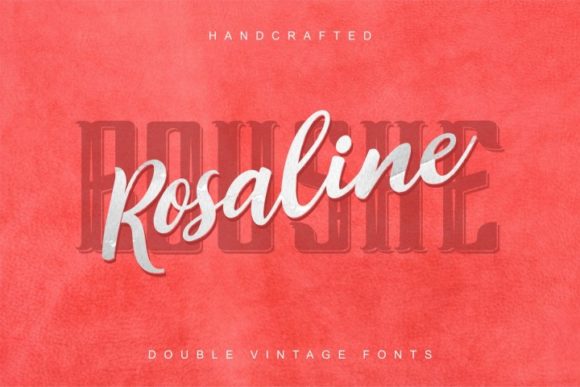
Rosalina Boushe Duo Font
About Rosalina Boushe Duo Font
The Rosalina Boushe is a fun font duo. With one striking font and one elegant font, you can endlessly create unique designs.